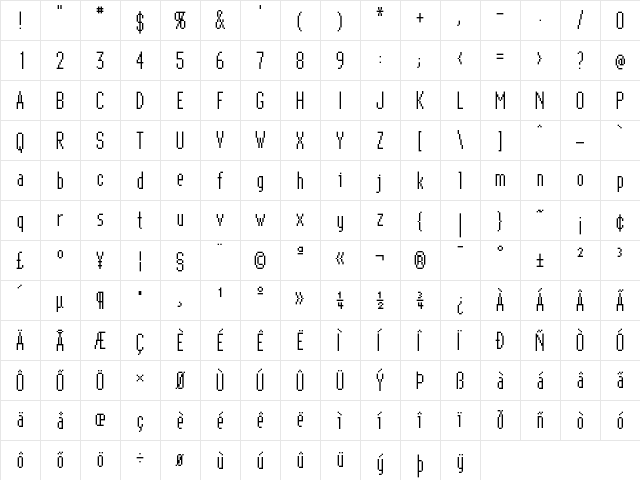
NewGenevaNineICG Point
Design Context for NewGenevaNineICG Typeface
NewGenevaNineICG is a composed and adaptable typeface that performs quietly and consistently across a wide range of design contexts.